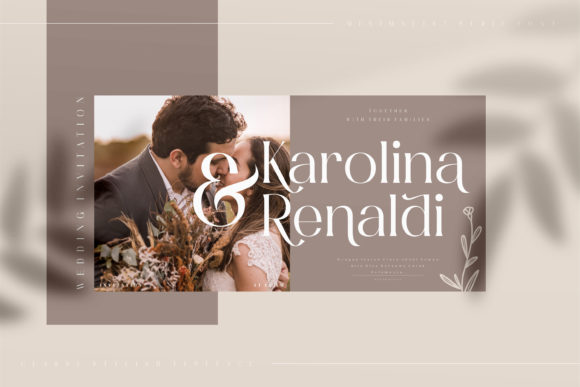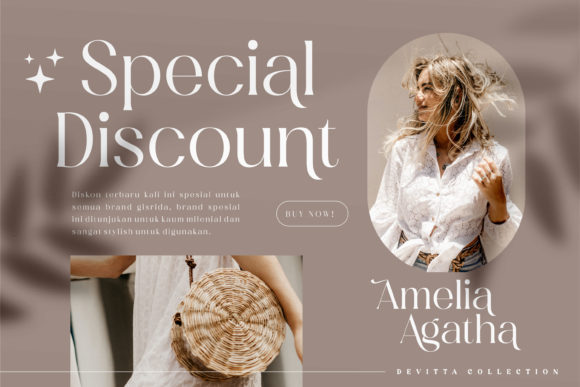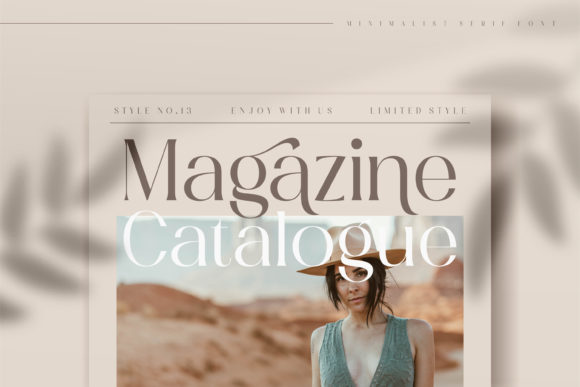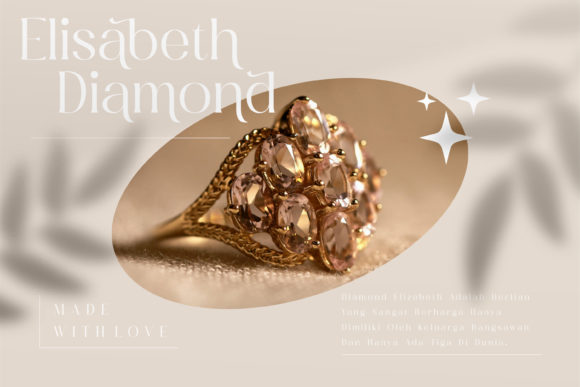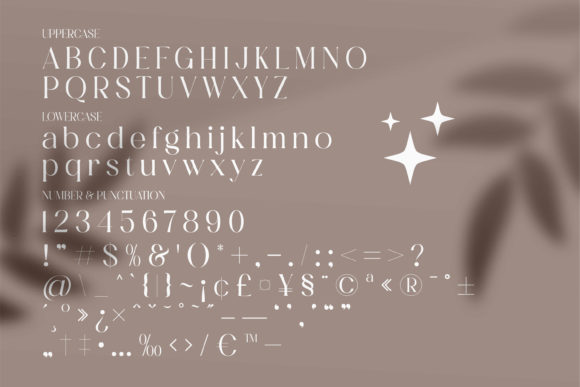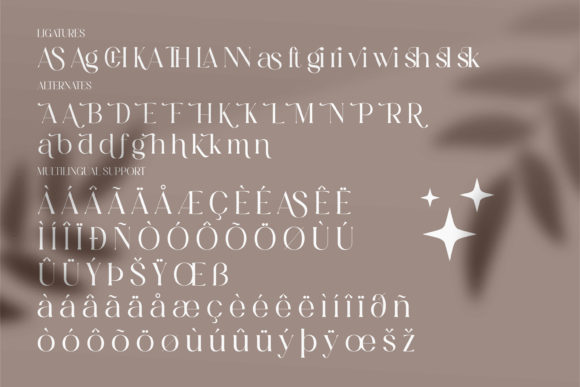
Introduction to Masvis Font
Do you remember that moment when you stumbled upon the perfect design resource for your creative project? The one that made your vision come alive and took your breath away? For designers, it’s that feeling of excitement and satisfaction that drives us to create something truly special. And, we’re thrilled to introduce you to the Masvis Font – a stunning, thin lettered and elegant serif font that’s sure to captivate your audience.
Key Features of Masvis Font
- High-quality design resource for creative projects, featuring a modern and sleek aesthetic.
- Transparent background, allowing for seamless integration into various design elements.
- Comes in a single font size, making it ideal for use in a variety of contexts, from small text to large headings.
- High-resolution design, suitable for use in both print and digital applications.
- Designed to be versatile and easy to use, making it a valuable resource for designers and artists.
Honest Review: Masvis Font
As a designer, I’m always on the lookout for high-quality design resources to enhance my creative projects. Recently, I stumbled upon the Masvis Font, and I’m excited to share my honest review.
- ✨ The font is highly customizable, allowing for a range of styling options to suit different design needs.
- ✨ The font is well-suited for digital designs, with a transparent background that makes it easy to overlay on different backgrounds.
- ⚠️ The font is not ideal for print designs, as it can appear pixelated when enlarged.
- ⚠️ The font is not as comprehensive as some other font packs, with a limited range of weights and styles.
Overall, I’m impressed with the Masvis Font, but it’s not a one-size-fits-all solution. It’s perfect for digital designs and creative projects where a high-quality, customizable font is needed. However, for print designs or projects that require a wide range of font options, you may want to consider other design resources.
Getting the Most Out of Masvis Font
To get the most out of the Masvis Font, use it consistently throughout your design to create a cohesive look. Experiment with different font sizes, styles, and colors to add visual interest to your design. You can also use the font in combination with other design elements to create a unique and eye-catching visual identity.
The Masvis Font is ideal for a wide range of creative projects, including logos, business cards, brochures, and more. Its high-quality design and versatility make it a popular choice among designers and creatives.
Q: Is Masvis Font a high-quality font suitable for professional use?
Yes, Masvis Font is a high-quality font designed to meet the needs of professional designers. The font features a clean and modern design, making it suitable for use in a variety of creative projects, from logos and branding to digital interfaces and publications.